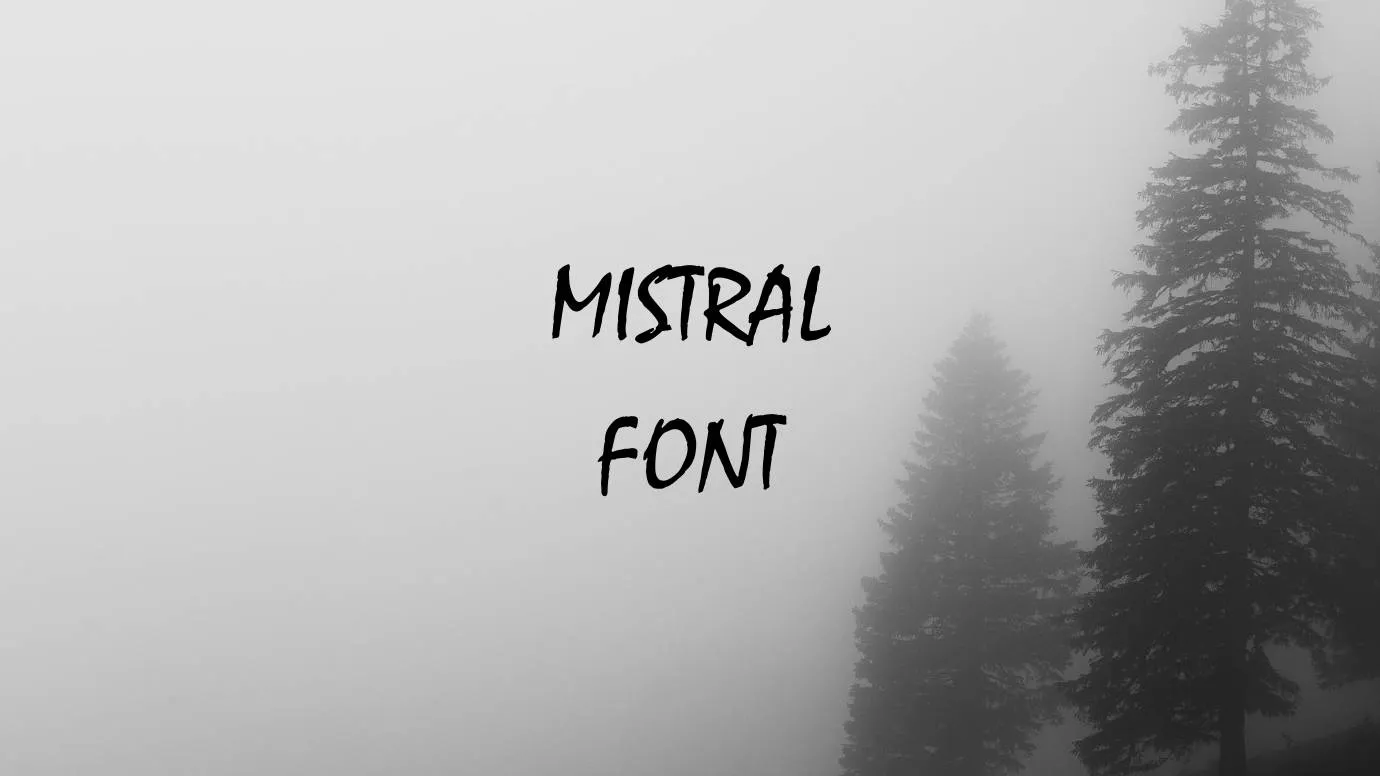
Mistral Font Family is a Casual script font crafted by Roger Excoffon several years ago. Excoffon, a French designer, earned acclaim for his radiant contributions to design. What sets this typeface apart is its creation based on the designer’s own handwriting, imparting an attractive and inviting appearance to the font.
Furthermore, the strokes of this font incorporate many similarities with ink and brush; that’s why it is named one of the most vital calligraphy typefaces that can be used with silicia script font.
Mistral Font Family
NameMistral Font
FoundryFonderie Olive, Amsterdam Type foundry
DesignerRoger Excoffon
Type Casual script
Date Released1953